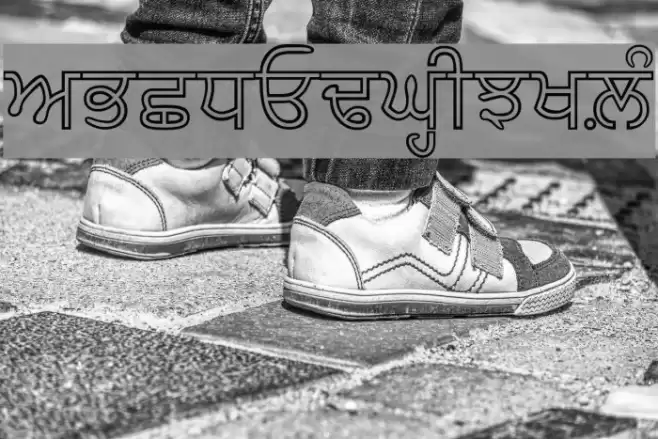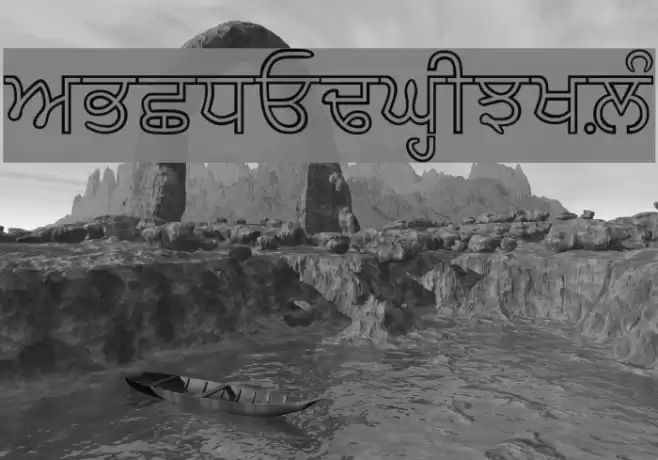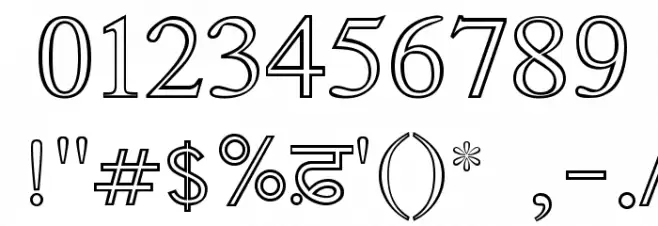
AnmolNeon Font
AnmolNeon Description
This font features a unique blend of traditional and modern elements, characterized by its bold, geometric shapes and clean lines. The characters are outlined, giving them a neon-like appearance, which adds a futuristic and dynamic feel. The font includes both uppercase and lowercase letters, numerals, and a variety of special characters, making it versatile for different design needs. Its distinct style is reminiscent of neon signage, making it ideal for projects that require a standout, eye-catching typeface.
A bold, geometric font with a neon-like outline, perfect for modern and dynamic designs from Asian fonts.
- Proposed Projects: Ideal for neon-themed designs, signage, posters, and branding projects that require a bold and modern aesthetic.